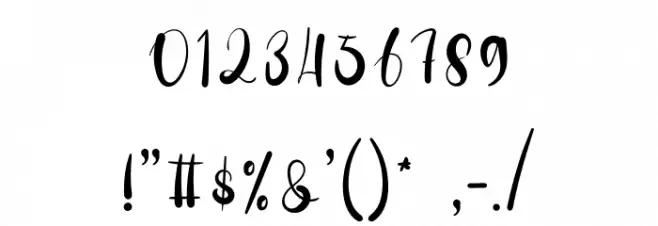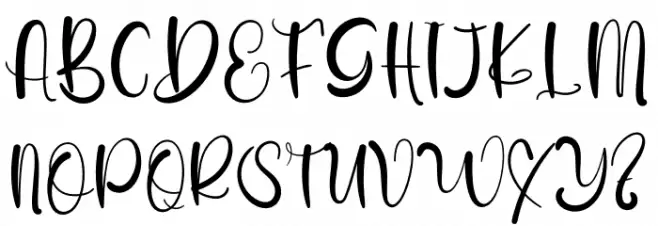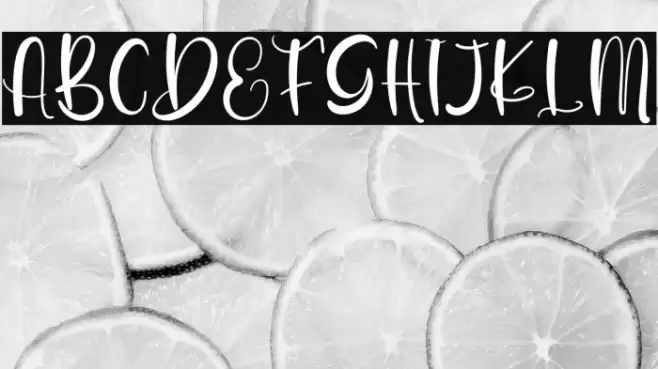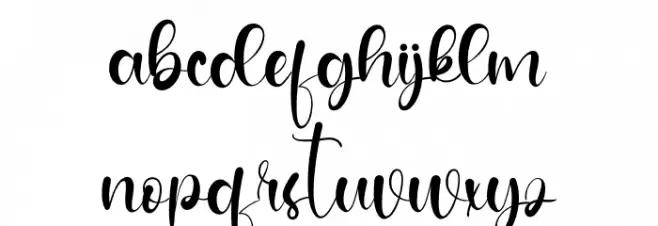
Drinks Font
Drinks Description
A decorative, handwritten script font with a playful and elegant style, featuring varied stroke widths and flowing curves.
| Overall Style | Playful, Elegant, Artistic |
| Use Case | Invitations, Greeting Cards, Branding, Logos, Packaging, Decorative Headings |